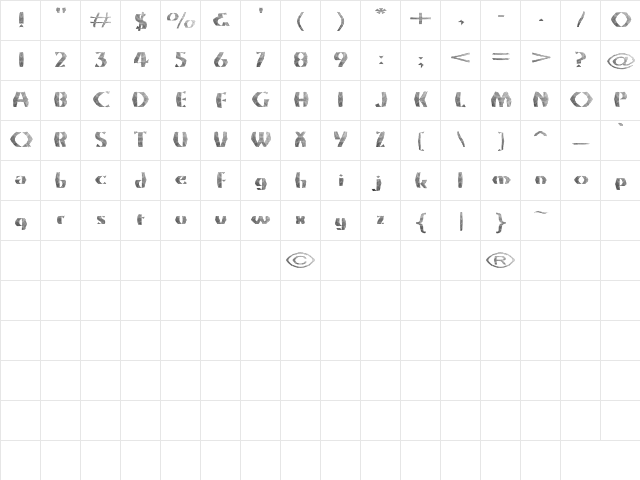
GrossNet Regular Free Font
GrossNet Regular
Design Context for GrossNet
GrossNet is a composed and adaptable typeface that performs quietly and consistently across a wide range of design contexts.